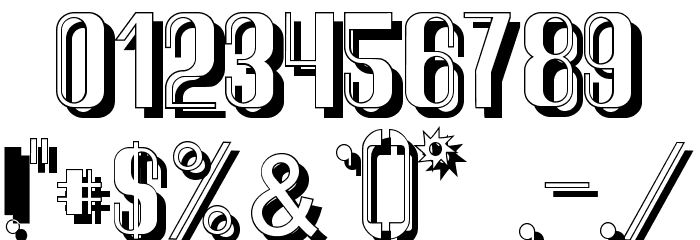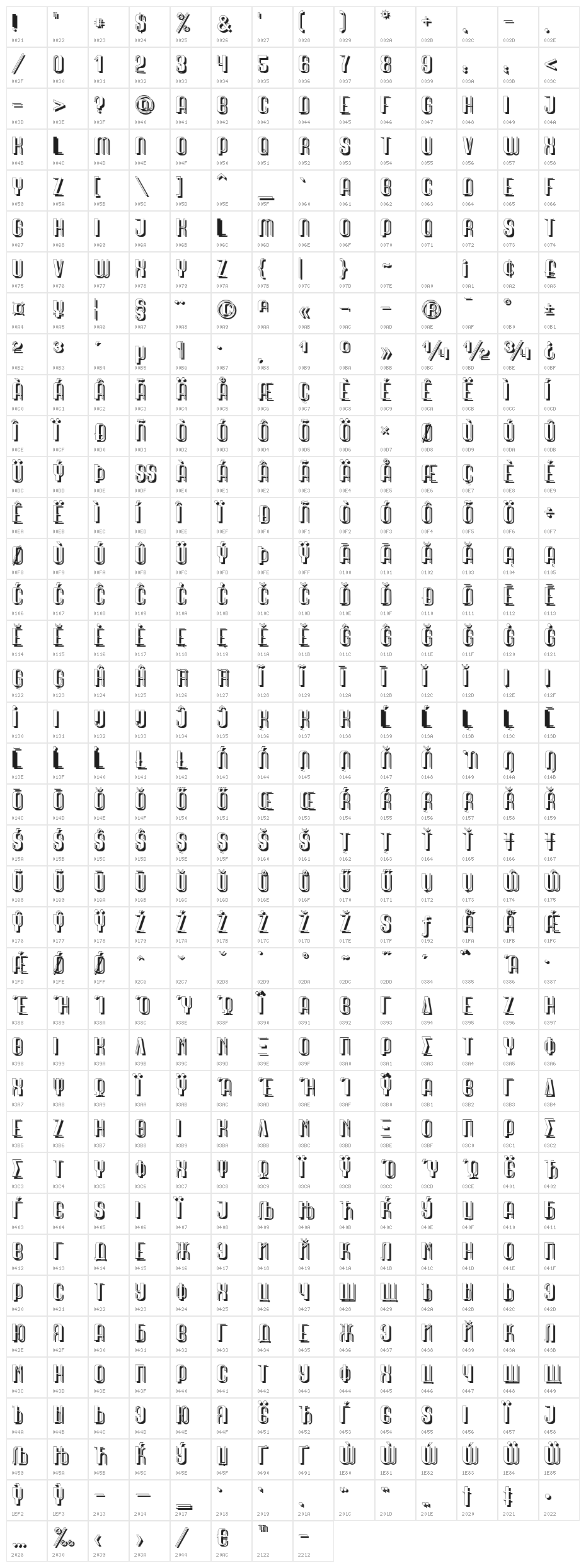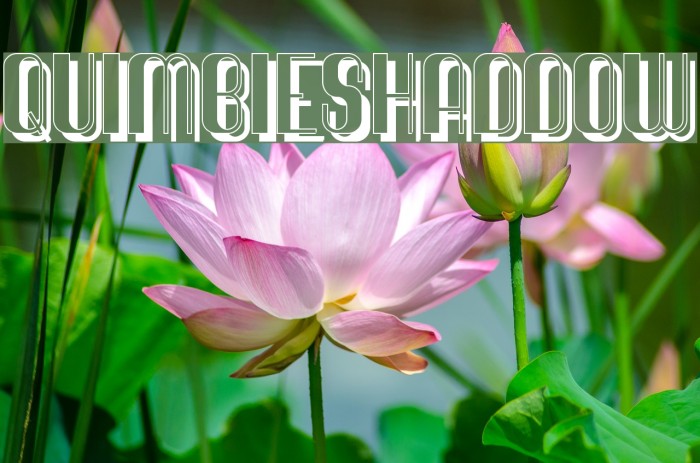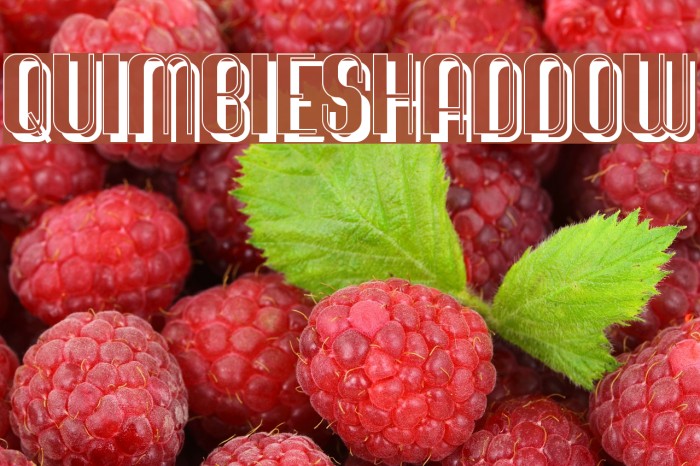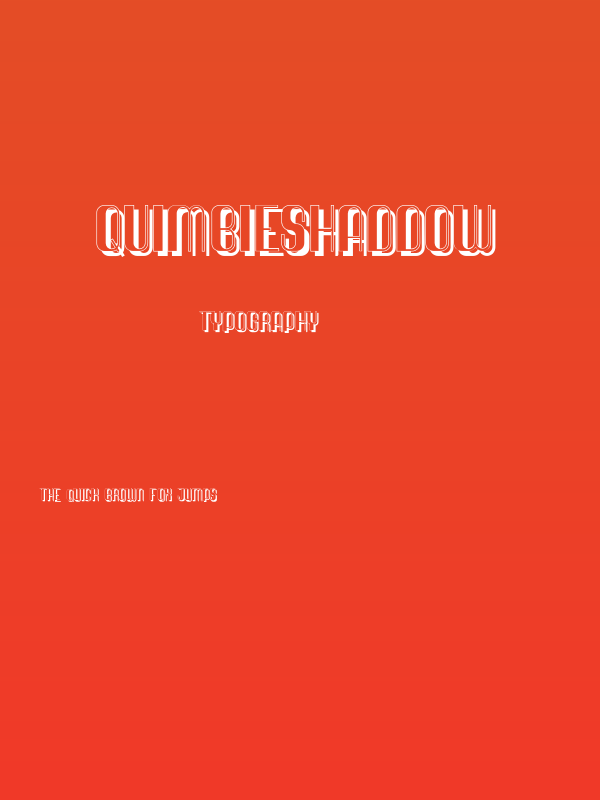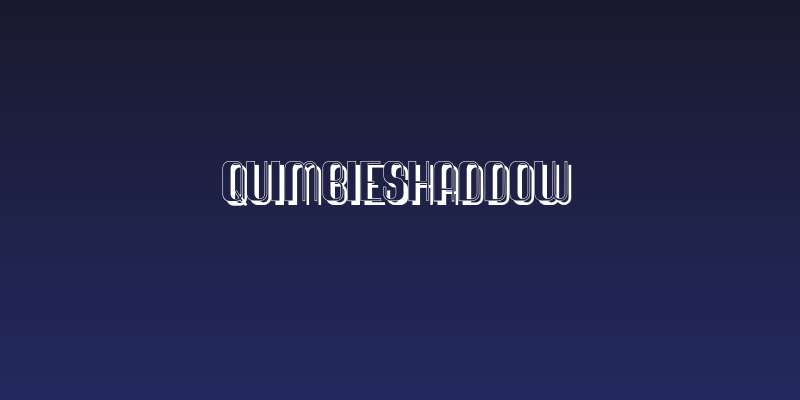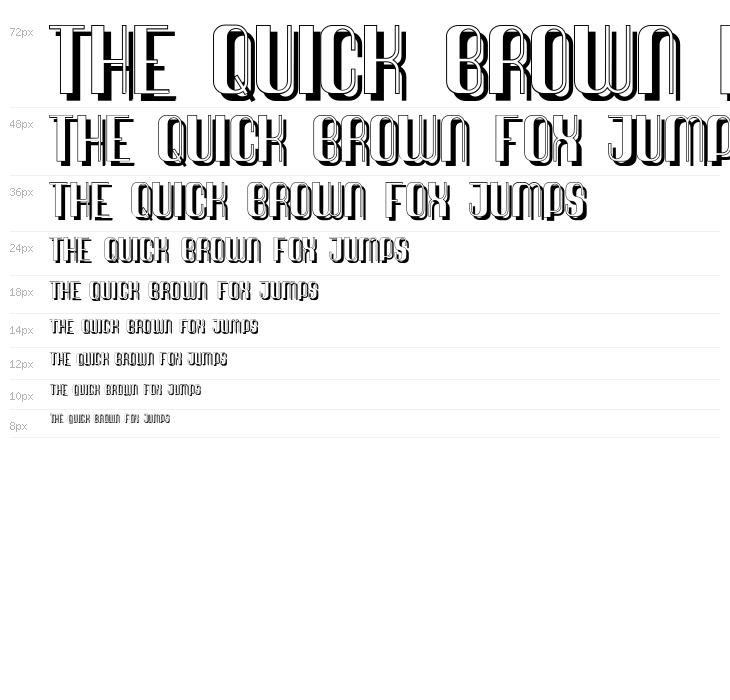
QuimbieShaddow Font
QuimbieShaddow Description
This font features a bold and striking design with a three-dimensional shadow effect that gives it a unique depth. The characters are uppercase and lowercase letters, numbers, and a variety of special symbols. The design is characterized by clean, straight lines and a geometric structure, making it highly legible while maintaining a decorative flair. The shadow effect adds a layer of complexity, making the font suitable for eye-catching designs. The overall style is modern with a hint of retro, making it versatile for various creative applications.
Proposed ProjectsIdeal for posters, headlines, logos, and branding materials that require a bold and distinctive look.